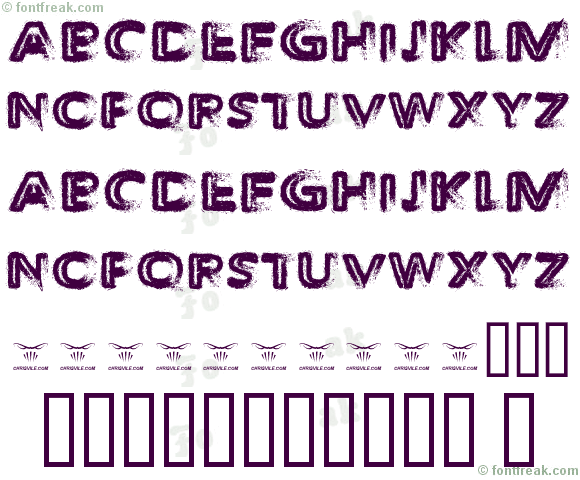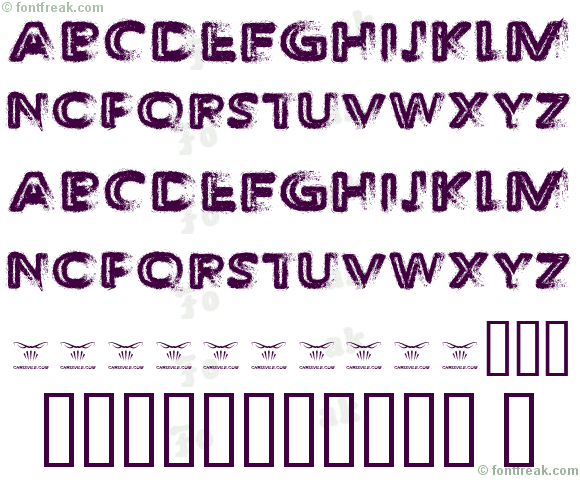
TheDecompozed-Regular
The Decompozed Regular
About TheDecompozed-Regular
TheDecompozed-Regular font by Chris Vile is a striking display typeface that falls under the decorative category. With its unique, rough-hewn aesthetic, this font captures the essence of a hand-crafted look, making it a standout choice for various creative projects. The strokes exhibit a medium weight with intentional irregularities that enhance its artistic flair. The contrast is subtle yet effective, providing a distinctly organic feel that sets it apart from more conventional typefaces. The spacing is carefully considered, ensuring legibility while maintaining a playful vibe that draws the eye.
This font is particularly well-suited for a range of applications. Its bold, expressive style makes it an excellent choice for wedding invitations, where a personal touch is desired. Additionally, TheDecompozed-Regular can elevate movie posters, lending an edgy and artistic quality that captures attention. Restaurant menus can benefit from its quirky charm, making the dining experience feel more inviting. Content creators looking to infuse their social media graphics with personality will find this font to be a valuable asset, as it resonates well with audiences seeking authenticity.
The target audience for TheDecompozed-Regular includes graphic designers, small business owners, and content creators who appreciate distinctive typography. It appeals to those who want to make a statement and stand out in a crowded marketplace.
What makes TheDecompozed-Regular truly memorable is its ability to convey creativity and individuality while remaining functional. TheDecompozed-Regular font free download allows users to access this unique typeface without financial commitment, inviting them to explore its potential in various design projects. With its distinctive character and versatility, this font is a perfect tool for anyone looking to add a touch of artistic flair to their work.